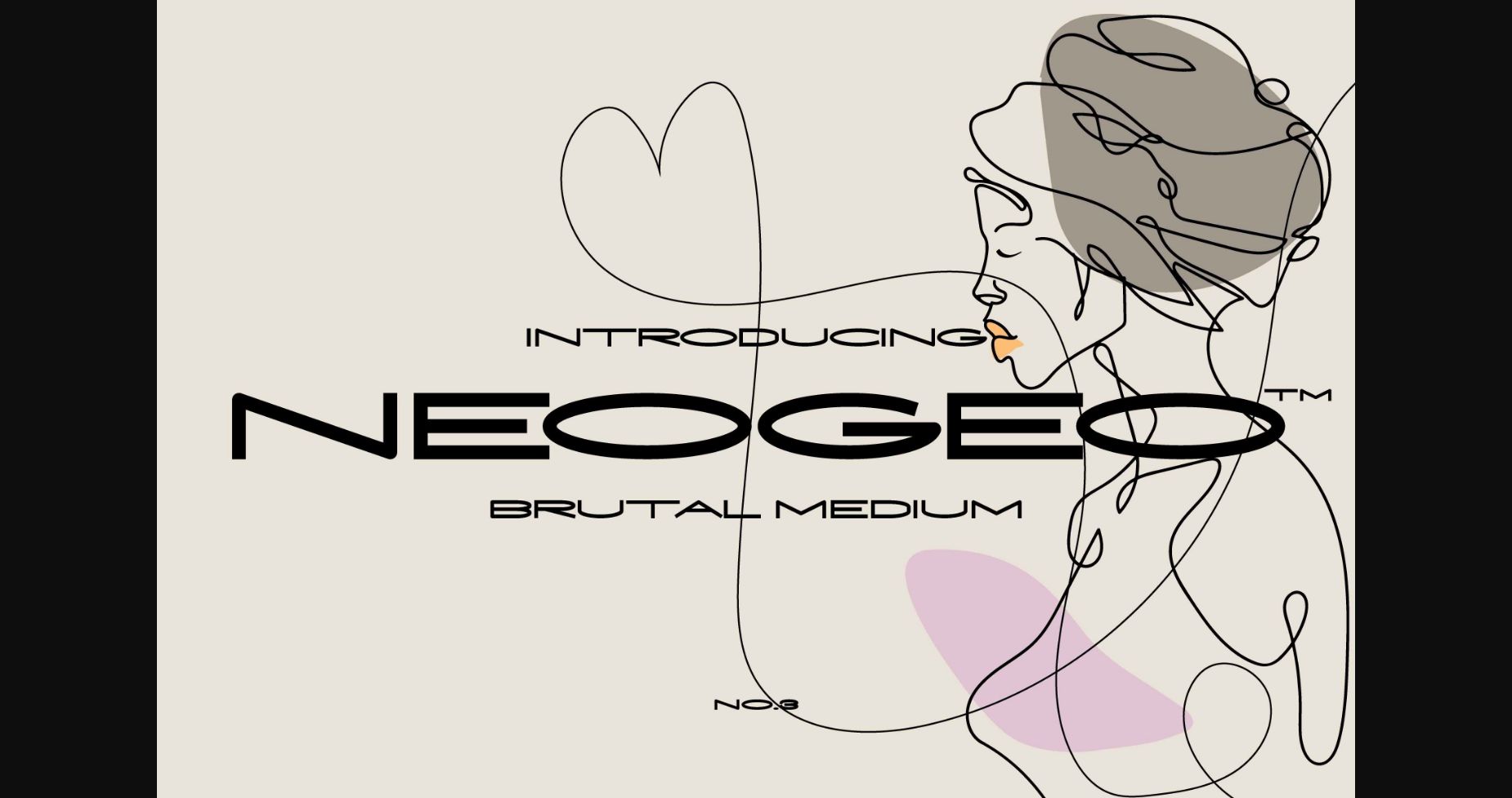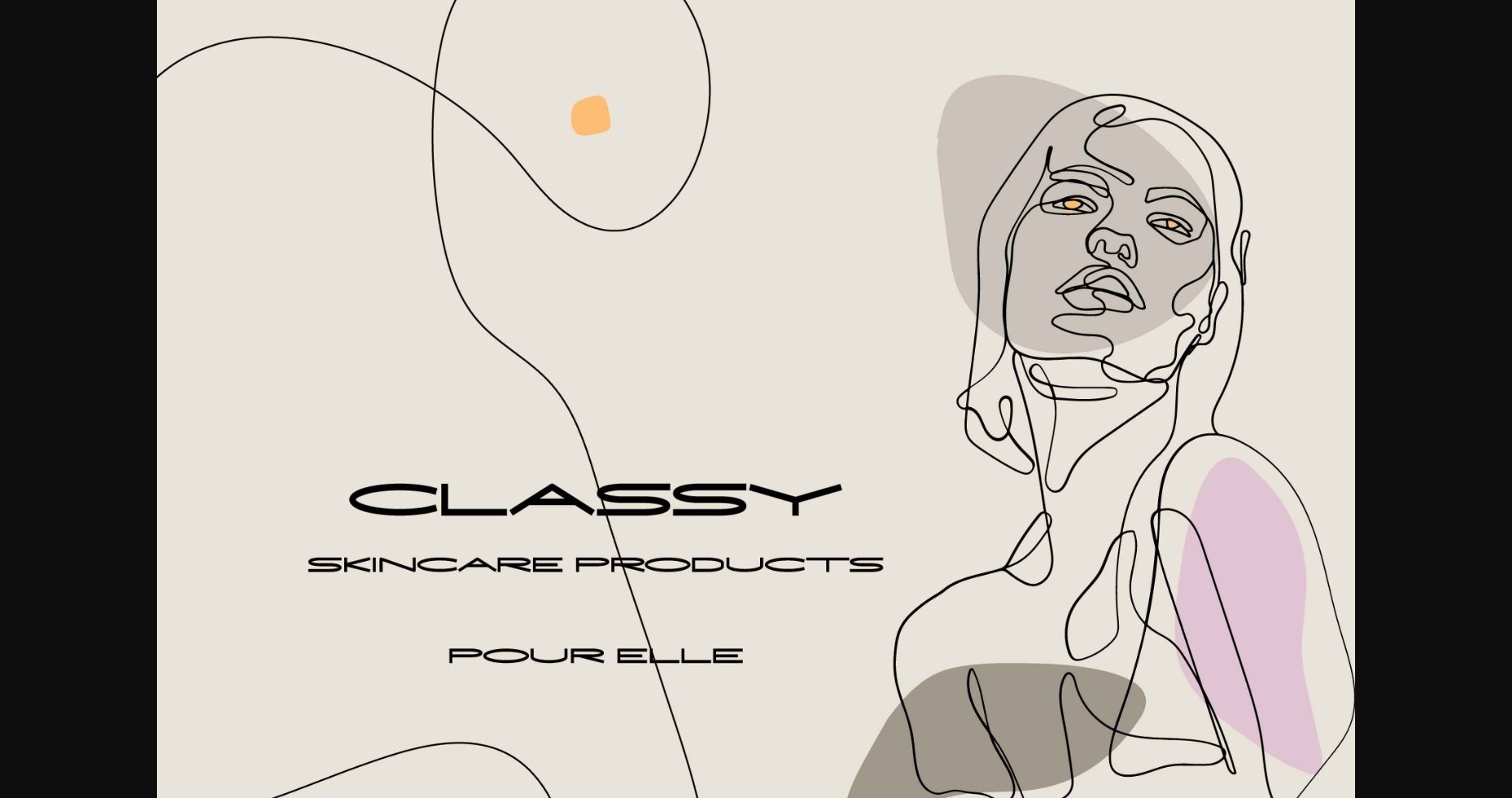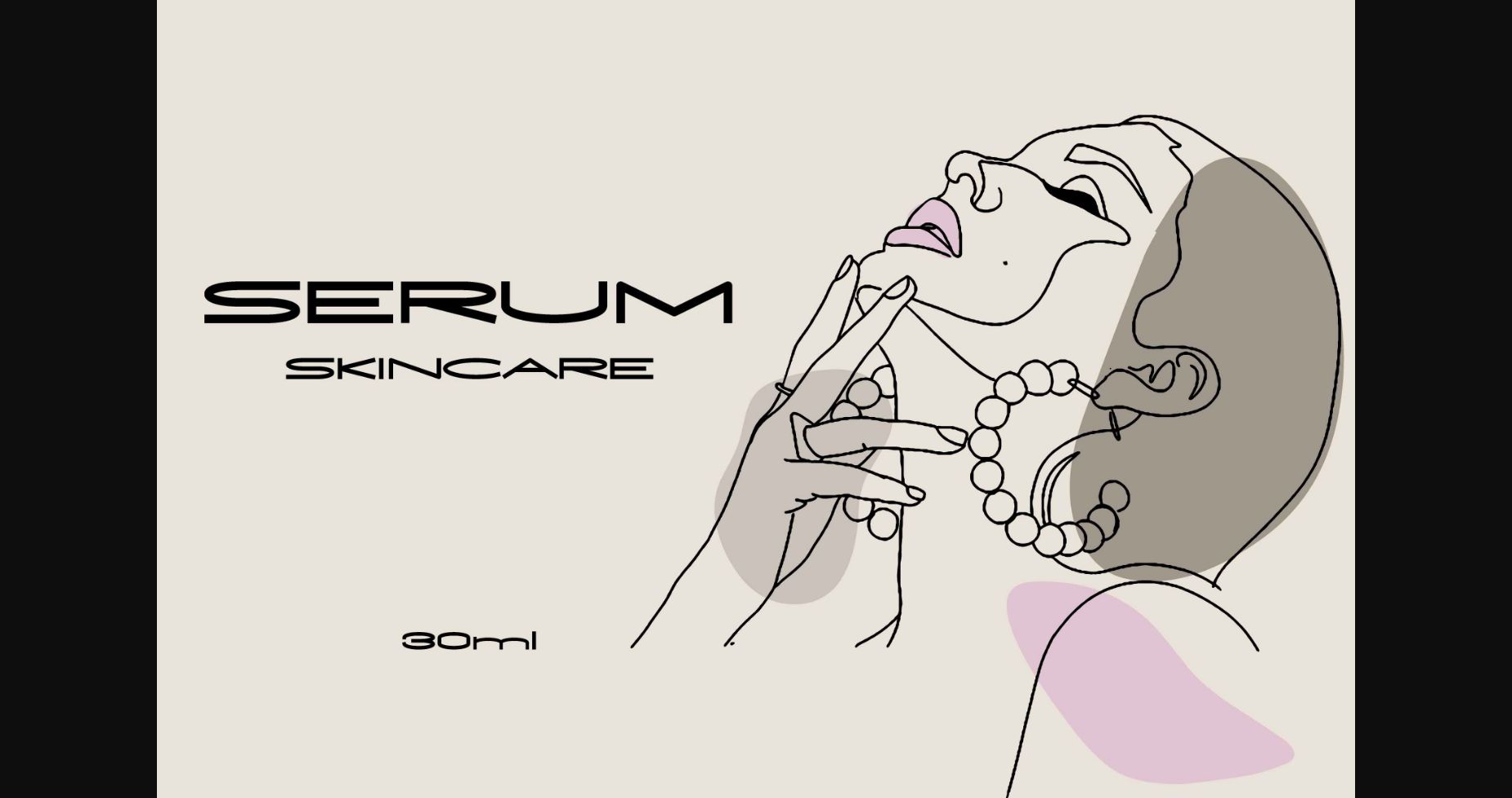
Neogeo Font
About Neogeo Font
Neogeo is a brutal, medium sans serif typeface which is suitable for heading, branding or pretty much any creation that requires a modern, futuristic touch. It fits really well on anything related to speed, sports, fashion, makeup products, and more.